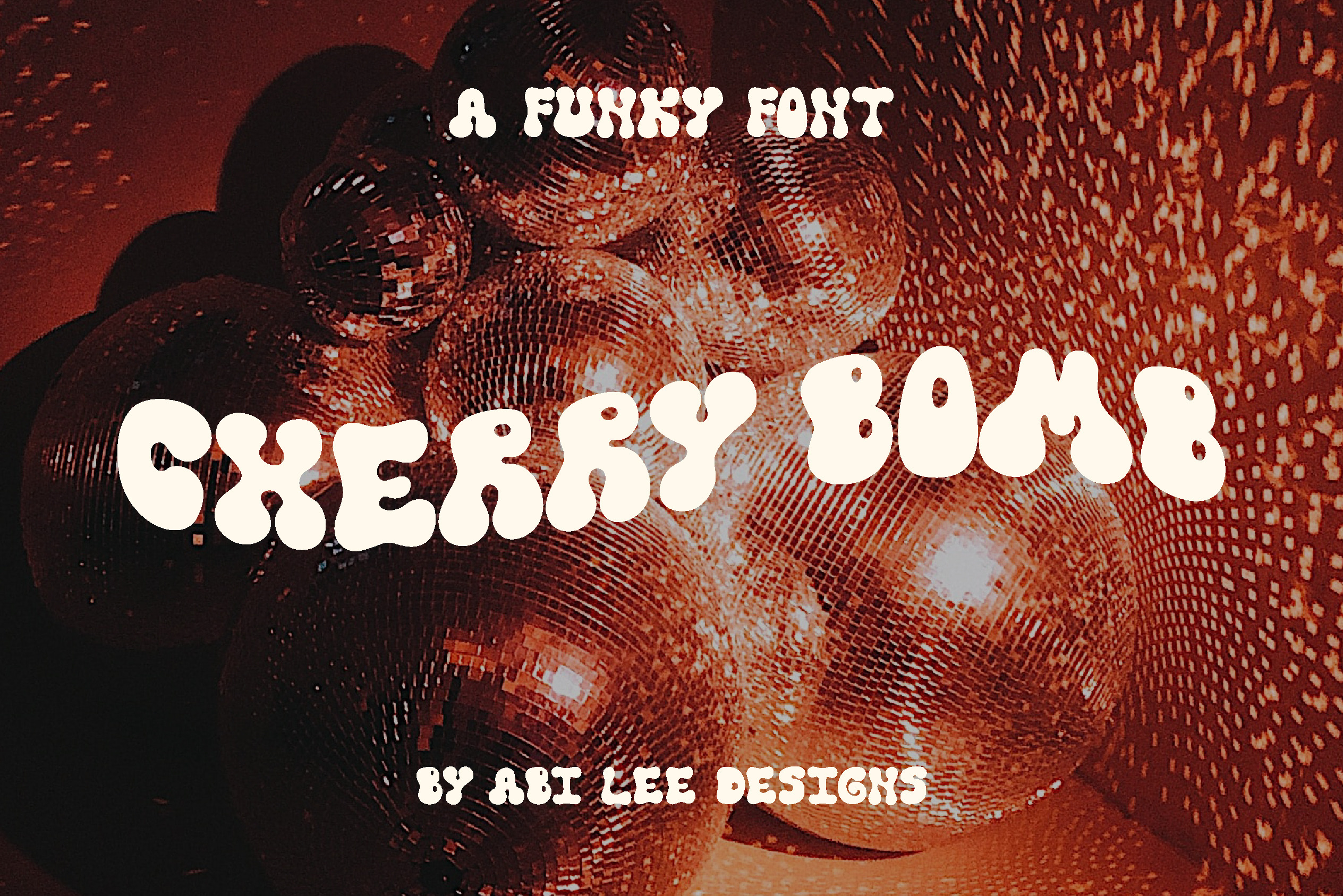
Cherry Bomb - Funky Font
Cherry Bomb is a retro, funky and groovy font! It is very suitable for use with retro, funky and vintage design themes and is also perfect for branding, posters, t-shirts, stickers and wall art. It comes with a full uppercase, lowercase, numbers and punctuation. We recommend using Adobe Illustrator or Photoshop.